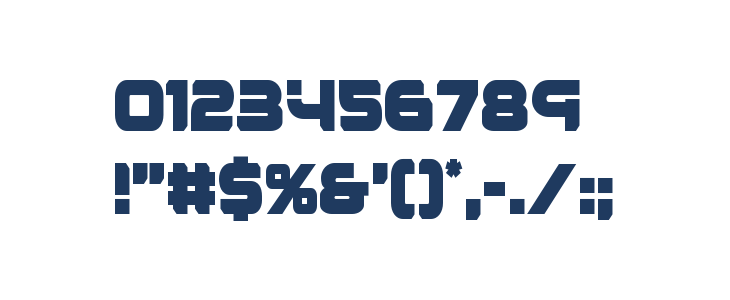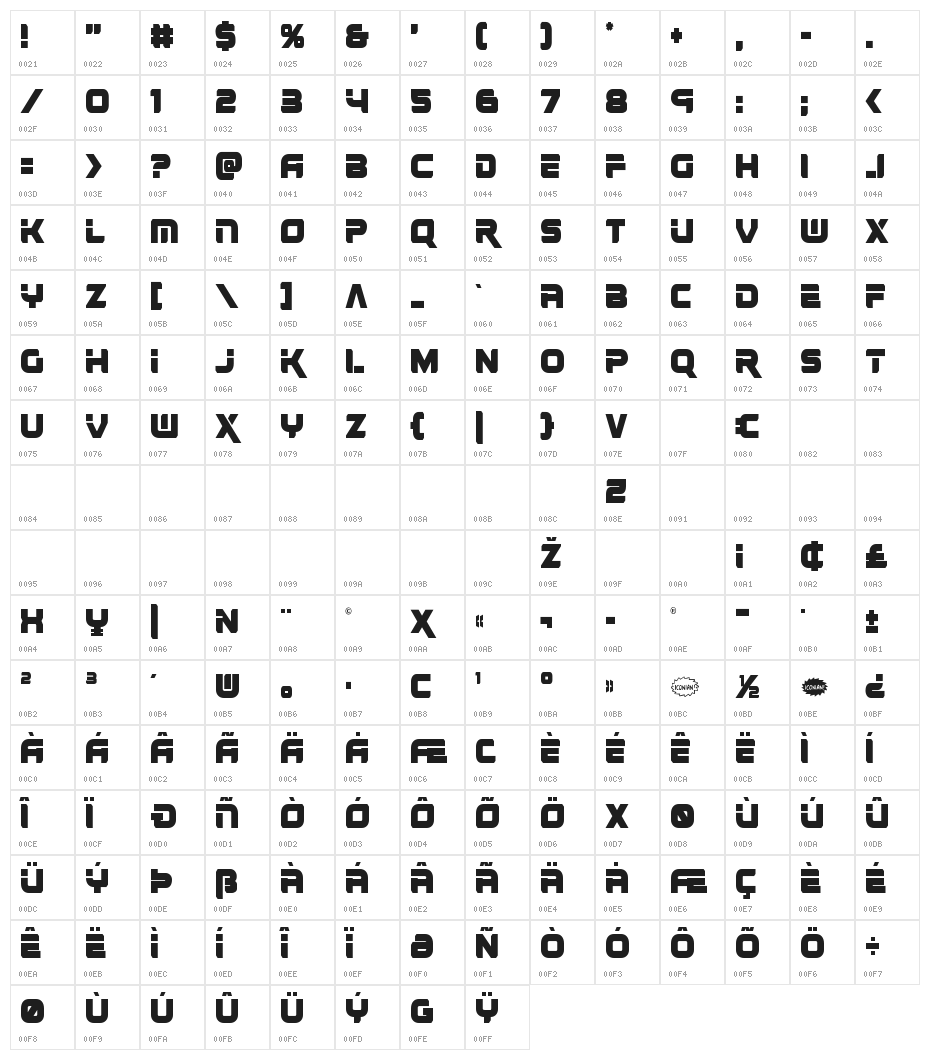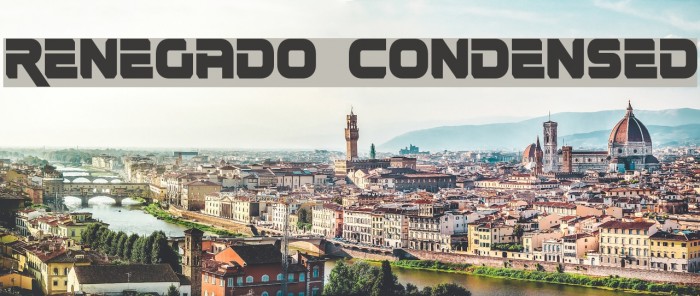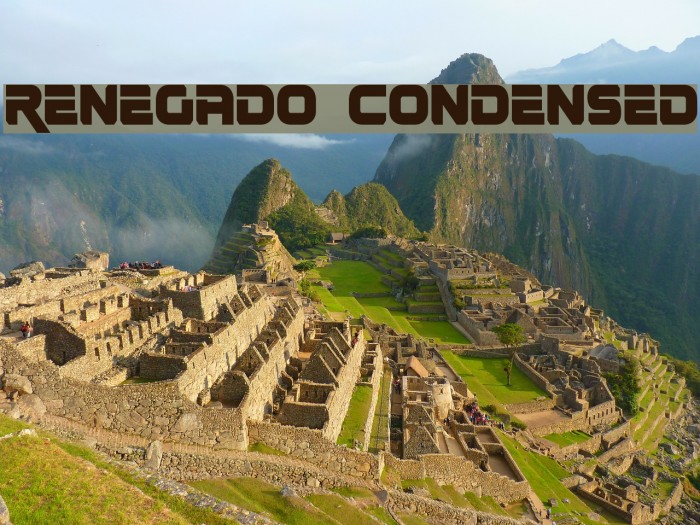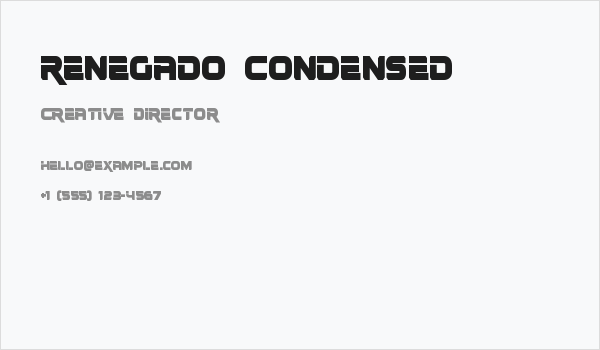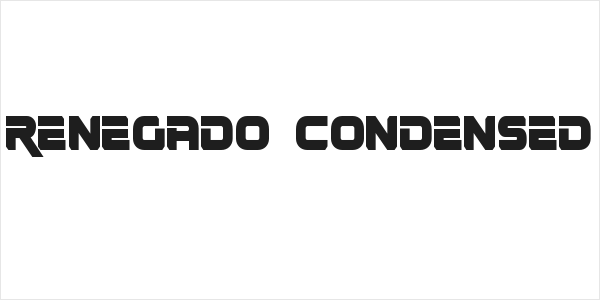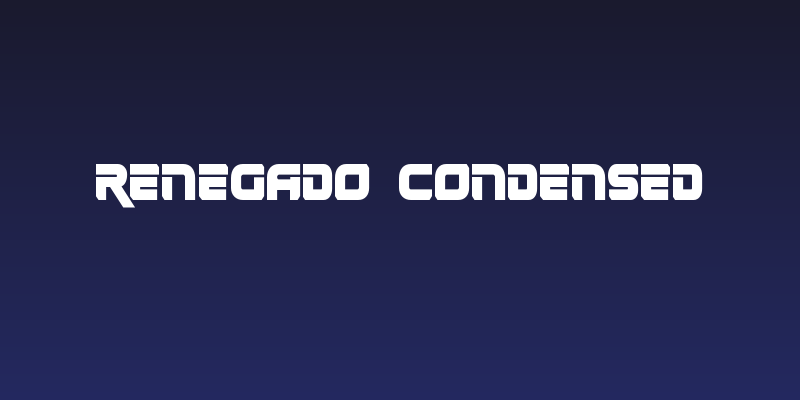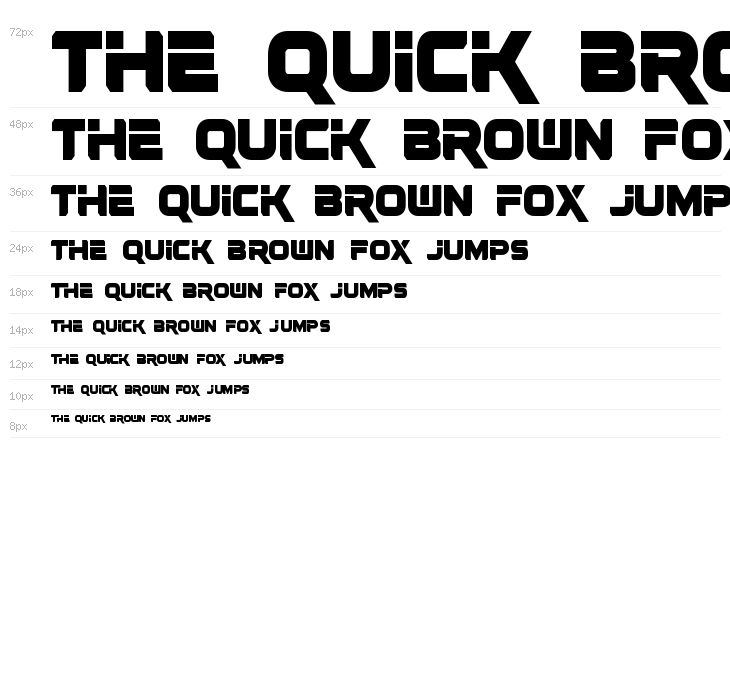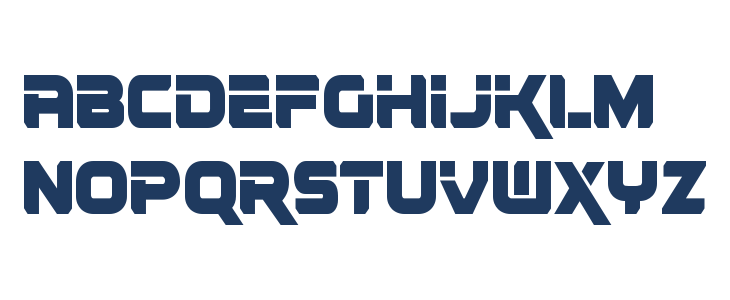
Renegado Condensed Font
Renegado Condensed Description
This font features a bold and futuristic design with a condensed structure. The characters are blocky and geometric, with sharp angles and a strong presence. The uppercase and lowercase letters maintain a consistent style, emphasizing a modern and industrial aesthetic. The numbers and special characters follow the same design principles, ensuring uniformity across all glyphs. This font is ideal for projects that require a bold statement, such as technology branding, sci-fi themes, or modern advertising. Its condensed width allows for efficient use of space while maintaining readability.
| Proposed Projects | Ideal for technology branding, sci-fi themes, modern advertising, and bold headlines. |